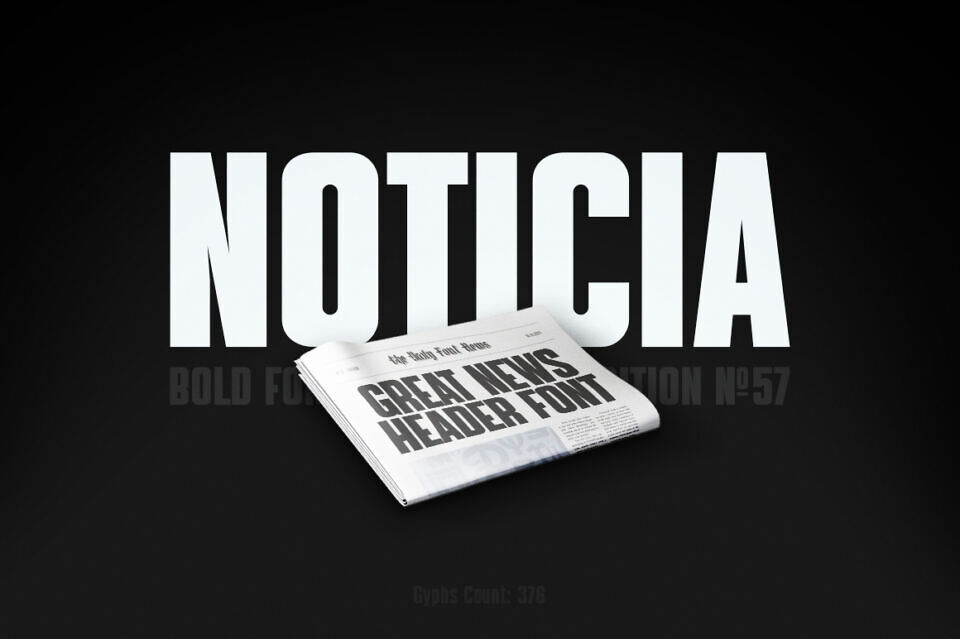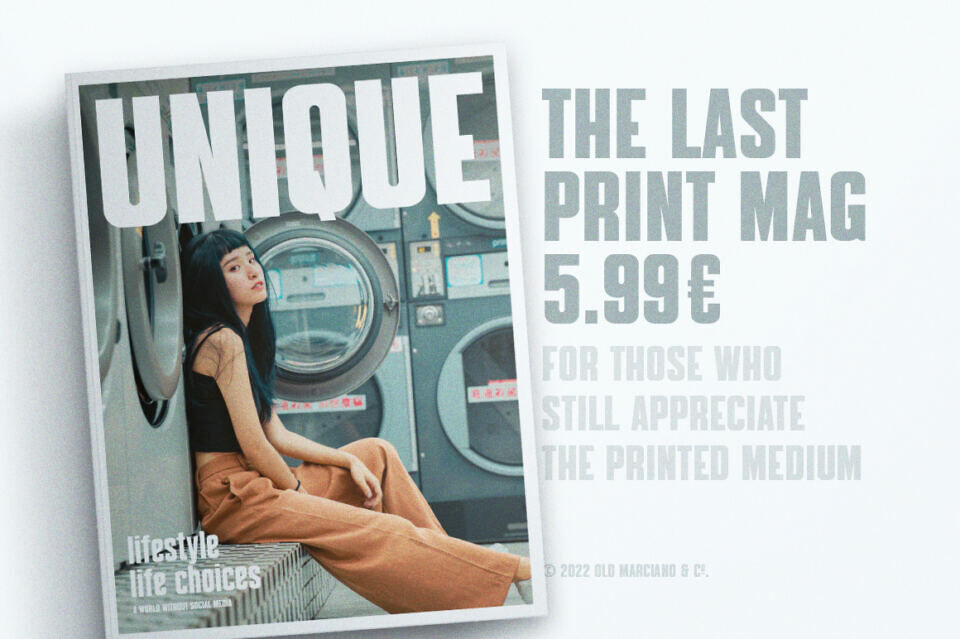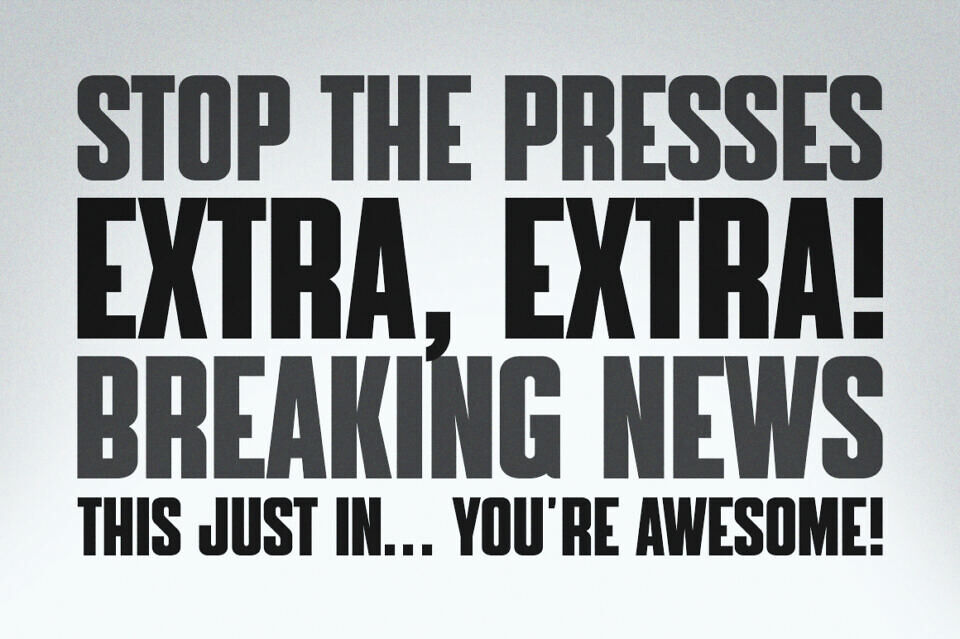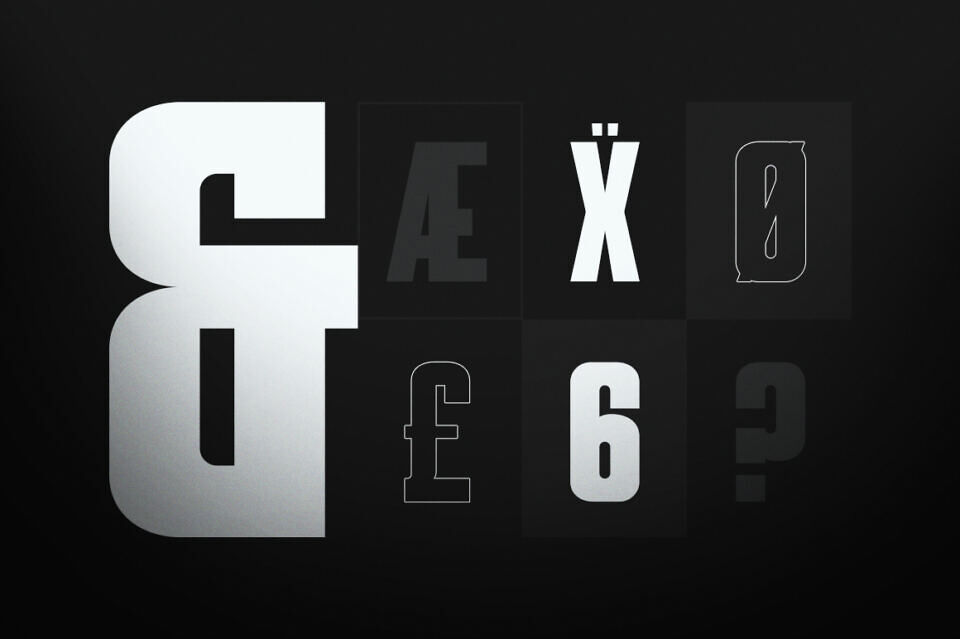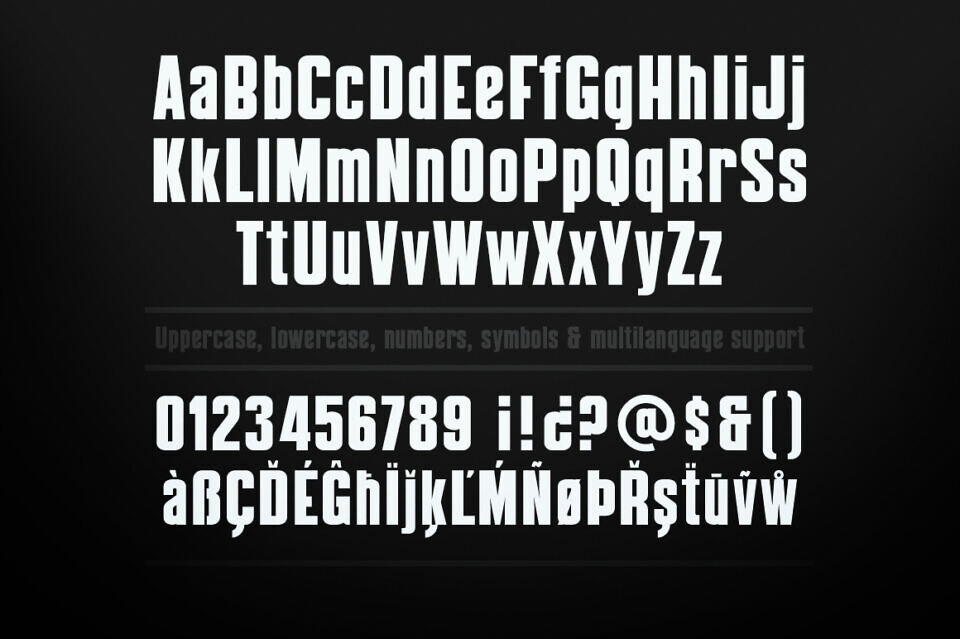
Noticia is a commanding, bold condensed sans-serif typeface designed by Don Marciano, optimized for impactful headlines and professional branding.
It features a modern, clean aesthetic with thick, authoritative strokes that ensure excellent legibility across both print and digital platforms. Its eye-catching design makes it an ideal choice for news-style titles, technology posters, and website banners.